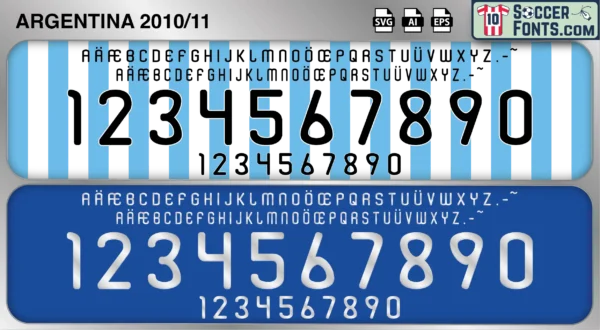
Argentina 2010-11 Font
The Argentina 2010-11 font is an editable soccer jersey lettering design in vector format inspired by the Argentina kit style used during the 2010-11 football seasons. This football font artwork is prepared for football shirt recreations, custom jersey projects, football kit mockups and sports graphic design workflows.
The 2010-11 period followed Argentina’s quarter-final exit at the 2010 FIFA World Cup and marked the beginning of a new cycle under coach Sergio Batista. Lionel Messi had firmly established himself among the world’s best players and became the focal point of the national team as Argentina looked toward future tournaments. The squad featured players such as Javier Mascherano, Sergio Agüero, Ángel Di María, Gonzalo Higuaín and Carlos Tevez during a period focused on rebuilding and long-term planning. The national team continued competing in international friendlies and preparations ahead of the Copa América hosted in Argentina.
The Argentina 2010-11 font became associated with the early years of Argentina’s transition into a team built around Messi’s leadership and influence. Argentina shirts from this era remain popular among football shirt collectors because of their connection with one of football’s greatest players during the formative stages of his international career as captain and team leader. The Argentina 2010-11 font reflects a period of renewal and expectation as Argentina sought to combine its rich football tradition with a new generation capable of challenging for major international honors in the years ahead.